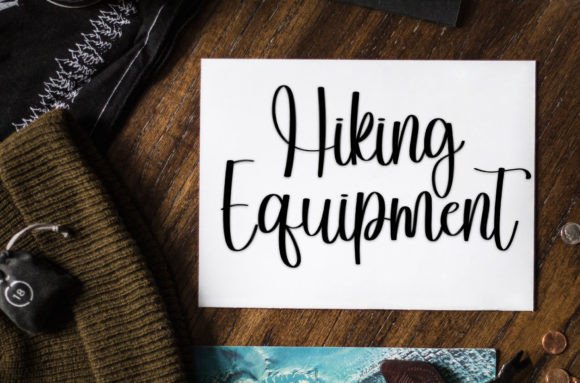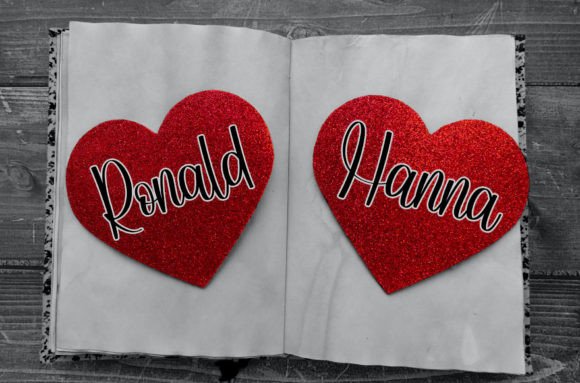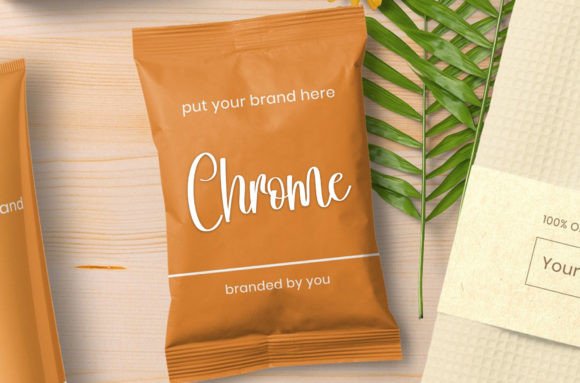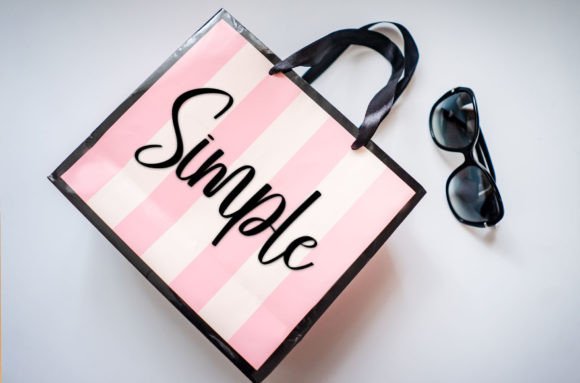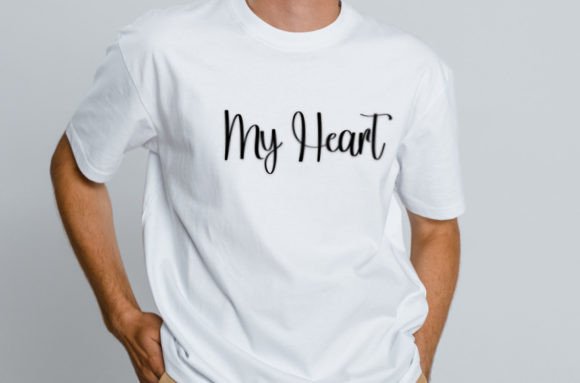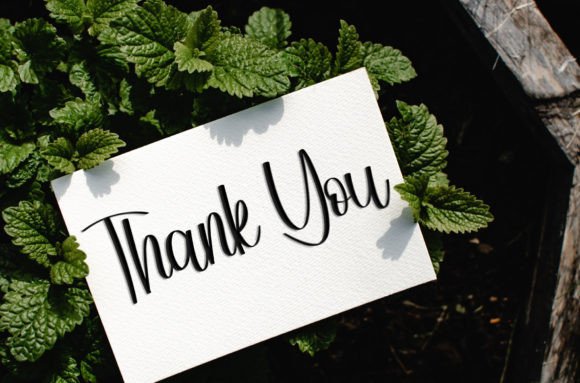
The Magic of Handwritten Text
As you sit at your desk, surrounded by papers, pencils, and a blank page staring back at you, you’re hit with a creative block. You need something to spark your imagination, something to bring your design to life. That’s when you stumble upon the perfect solution – a beautiful handwritten font that transports you to a world of elegance and sophistication.
Meet the Calligraph Font, a versatile script font that’s perfect for adding a touch of romance to your next project. Whether you’re designing a wedding invitation, a birthday card, or a headline that needs to grab attention, this enchanting font is guaranteed to do the trick.
For designers, the Calligraph Font is a valuable tool that offers endless possibilities. Its wide range of applications makes it a go-to choice for any creative project, and its unique charm is sure to leave a lasting impression on your audience.
Calligraph Font Key Features
- Font Style: Elegant, cursive script with intricate flourishes, ideal for formal and creative applications.
- Language Support: Supports a wide range of languages, including Latin, Cyrillic, and Greek alphabets, making it suitable for international applications.
- Unique Characteristics: Features a unique, hand-crafted feel with subtle variations in letterforms, giving it a distinctive and artistic touch.
- Font Weight and Style Options: Includes multiple font weights (Light, Regular, Bold, and Extra Bold) and styles (Italic and Regular) for added versatility.
Calligraph Font Review
Overall, I think the Calligraph Font is a great option for designers looking to add a touch of elegance to their projects. ✨ It’s versatile, easy to use, and works well in a variety of contexts, from wedding invitations to luxury brand logos.
Some of the things that work particularly well with this font include:
- Its classic, high-end aesthetic: The Calligraph Font is reminiscent of traditional calligraphy, making it perfect for projects that require a touch of sophistication.
- Its legibility: Despite its ornate appearance, the font is still easy to read, even at smaller font sizes.
- Its flexibility: The Calligraph Font works well in both digital and print formats, making it a great choice for designers who work on a variety of projects.
However, there are a few limitations to be aware of:
- Its limited expressiveness: While the Calligraph Font is great for conveying a sense of elegance, it may not be the best choice for projects that require a lot of personality or whimsy.
- Its potential for overuse: With its classic, timeless look, the Calligraph Font can be a bit too safe for some designers’ tastes. Be careful not to overuse it in your projects!
Overall, I think the Calligraph Font is a solid choice for designers who want to add a touch of sophistication to their projects. Just be mindful of its limitations and use it thoughtfully.
Use Calligraph Font for creative and decorative text elements, such as:
– Event signage and banners
– Social media graphics and ads
– Print materials, like business cards and brochures
Alternatives to Calligraph Font for Designers